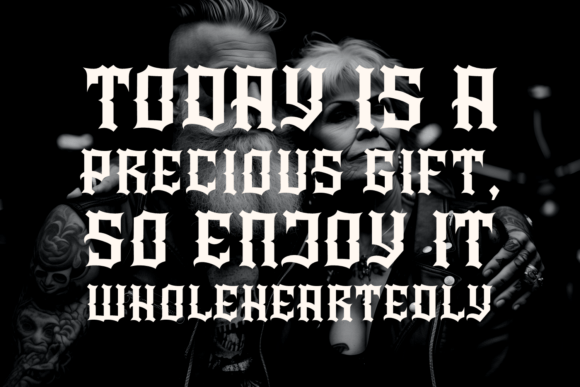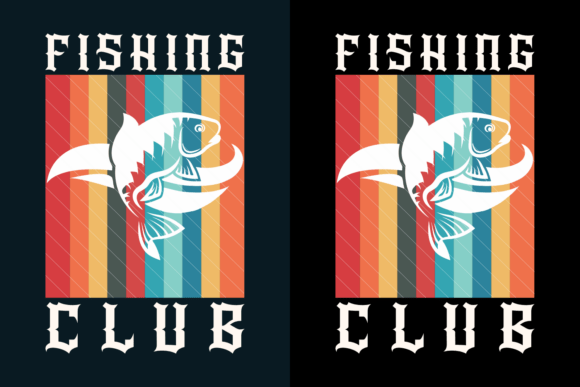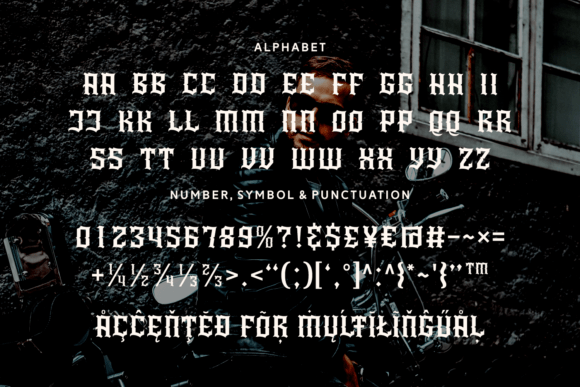
Introduction to Rock Lover Font
Do you remember the rush of excitement when you first started a new creative project? The blank canvas, the endless possibilities, and the thrill of bringing your vision to life? For designers, that feeling never gets old. And for those who live and breathe rock ‘n’ roll, there’s one font that stands out from the crowd: Rock Lover Font.
This bold and energetic blackletter font is more than just a design resource – it’s a statement piece that screams rebellion and style. With its traditional gothic structure blended with smooth, impactful curves, Rock Lover Font brings old-school flair into modern rock ‘n’ roll designs. Whether you’re creating a tour poster, album cover, or loud statement tee, this font is sure to make your message stand out.
Key Features of Rock Lover Font
- Unique rock-inspired design elements, perfect for music-themed projects or those looking to add an edgy touch
Honest Review: Rock Lover Font
As a designer, I’m always on the lookout for new and exciting design resources to enhance my creative projects. The Rock Lover Font is one such find that caught my attention. This free download is perfect for anyone who wants to add a touch of edginess to their design work.
- ✨ Unique and bold typography: The Rock Lover Font has a distinct, eye-catching style that’s sure to grab attention.
- ✨ High quality: The font is crisp and clear, making it perfect for use in a variety of design contexts.
- ⚠️ Limited font styles: While the Rock Lover Font is bold and eye-catching, it’s limited to a single style, which may not be suitable for all design projects.
- ⚠️ Not suitable for small text: The font is best used for headlines and titles, as it can be difficult to read in smaller sizes.
Overall, I think the Rock Lover Font is a great addition to any designer’s toolkit. Its unique style and high quality make it a great choice for creative projects, and the transparent background is a nice touch. While it may have some limitations, I believe it’s well worth the free download.